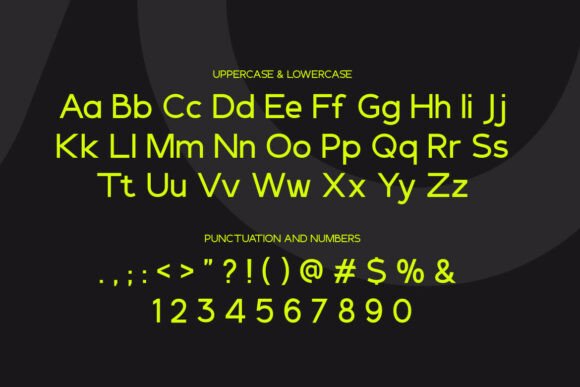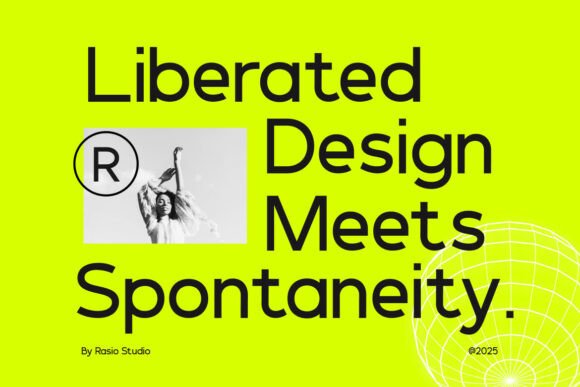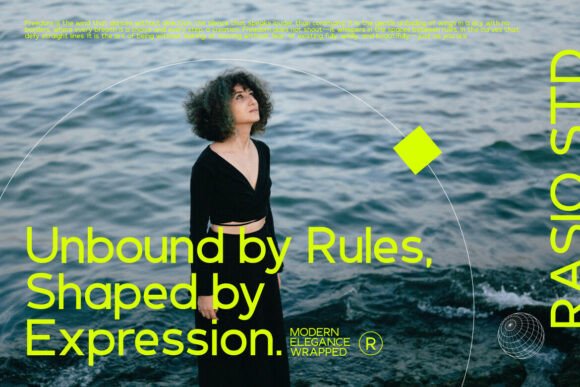
Introduction to Polargo Font
Polargo is a bold modern geometric sans serif typeface designed for strong visual impact and contemporary branding.
Featuring clean circular forms, balanced proportions, and smooth stroke consistency , this typeface blends minimalism with expressive confidence The font includes uppercase, lowercase, numerals, and punctuation, making it highly versatile for professional and creative projects.